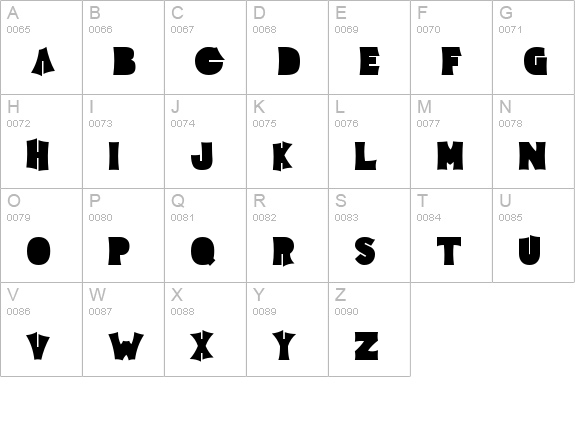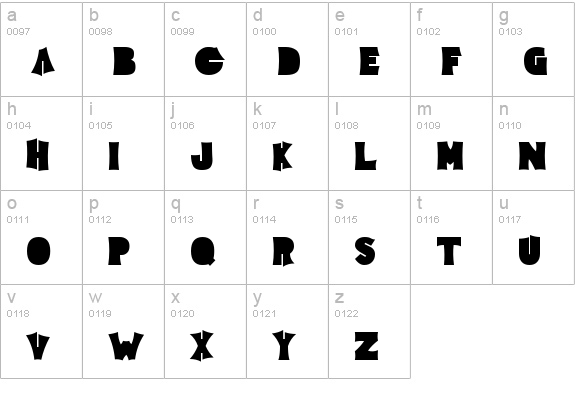
Electric Pickle Bold is a strong, high-contrast variant in the Electric typeface family \xE2\x80\x94 well suited to headlines, attention-grabbing titles, and strong calls-to-action.
Electric Pickle Bold font is a modern and eye-catching typeface that exudes energy and creativity. Its bold and dynamic design makes it perfect for a variety of design projects, from branding to advertising to social media posts. The geometric shapes and sharp lines of this font give it a sleek and contemporary look that is sure to make your text stand out. The best part? Electric Pickle Bold is completely free to download at FontsMarket.com. Whether you're a graphic designer looking for a new font to add to your collection or just someone who wants to spice up their social media posts, Electric Pickle Bold is a versatile and stylish choice. Download it today and give your projects that extra spark they need!